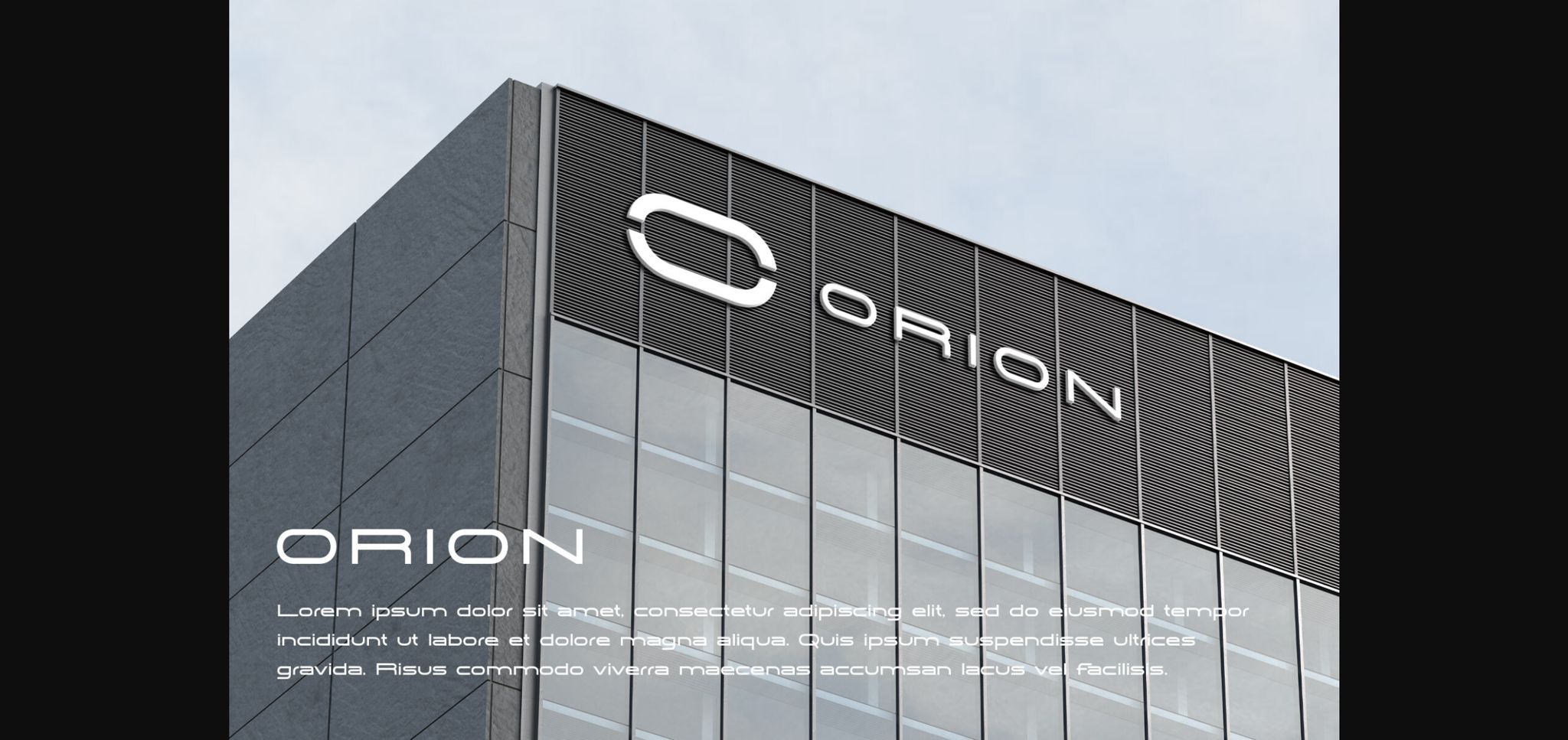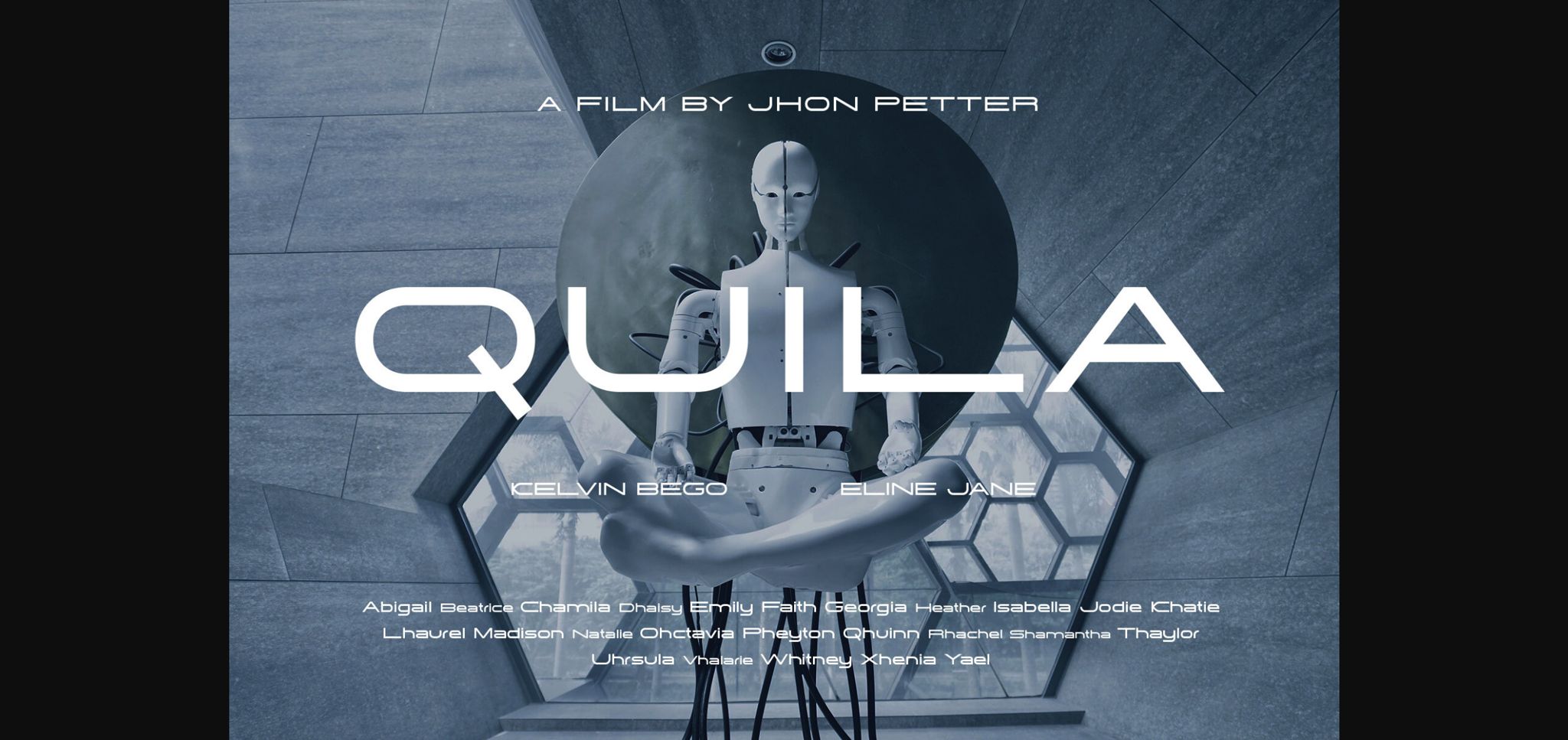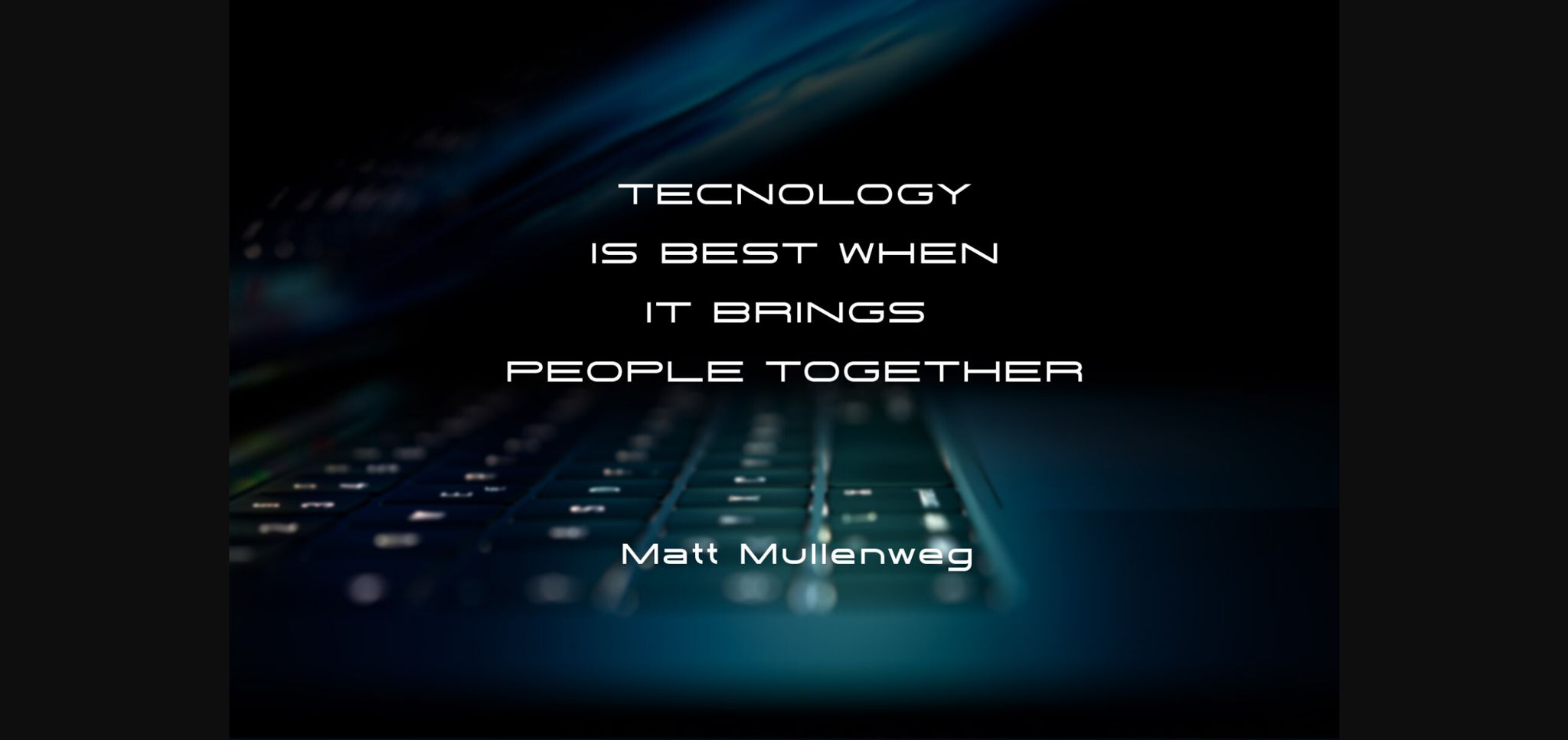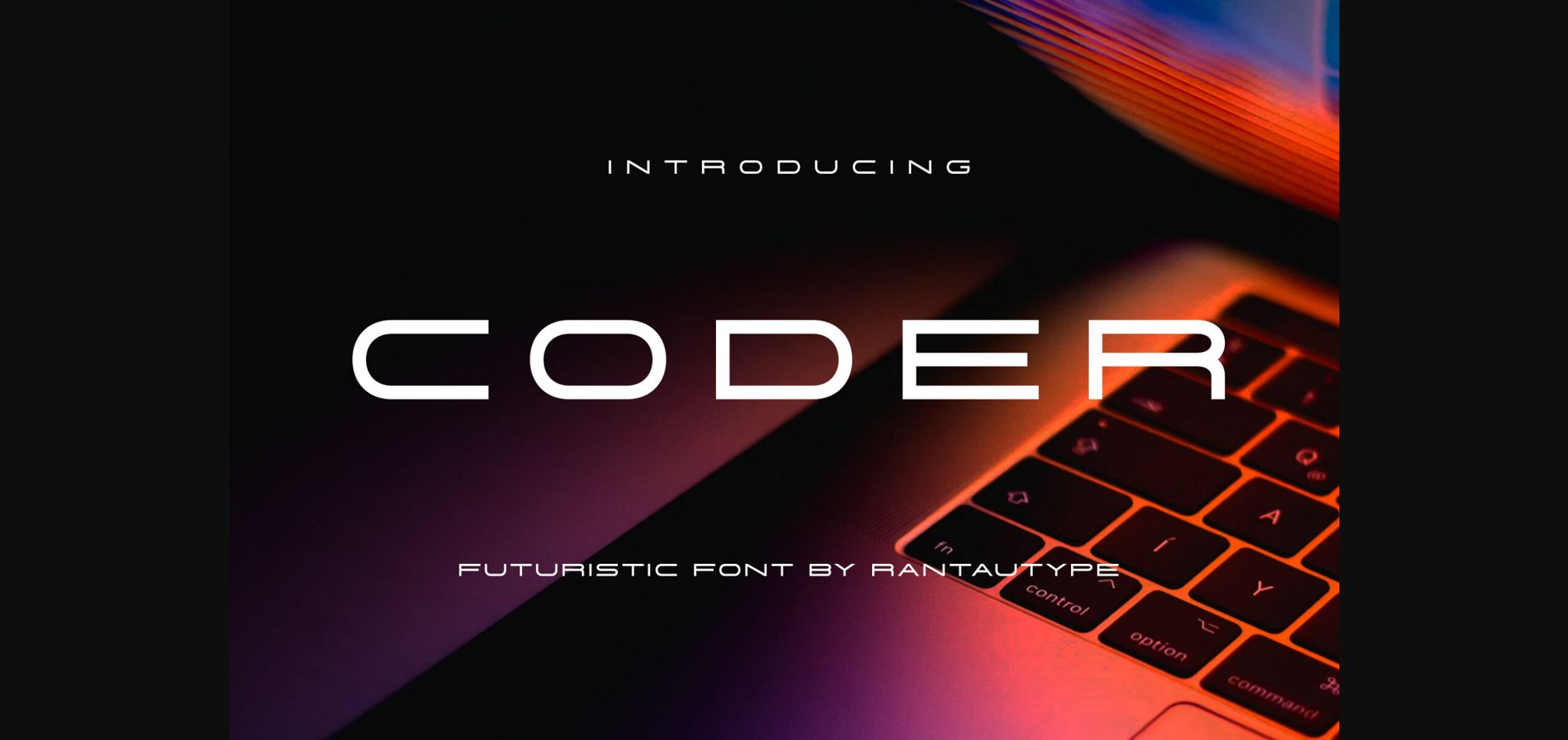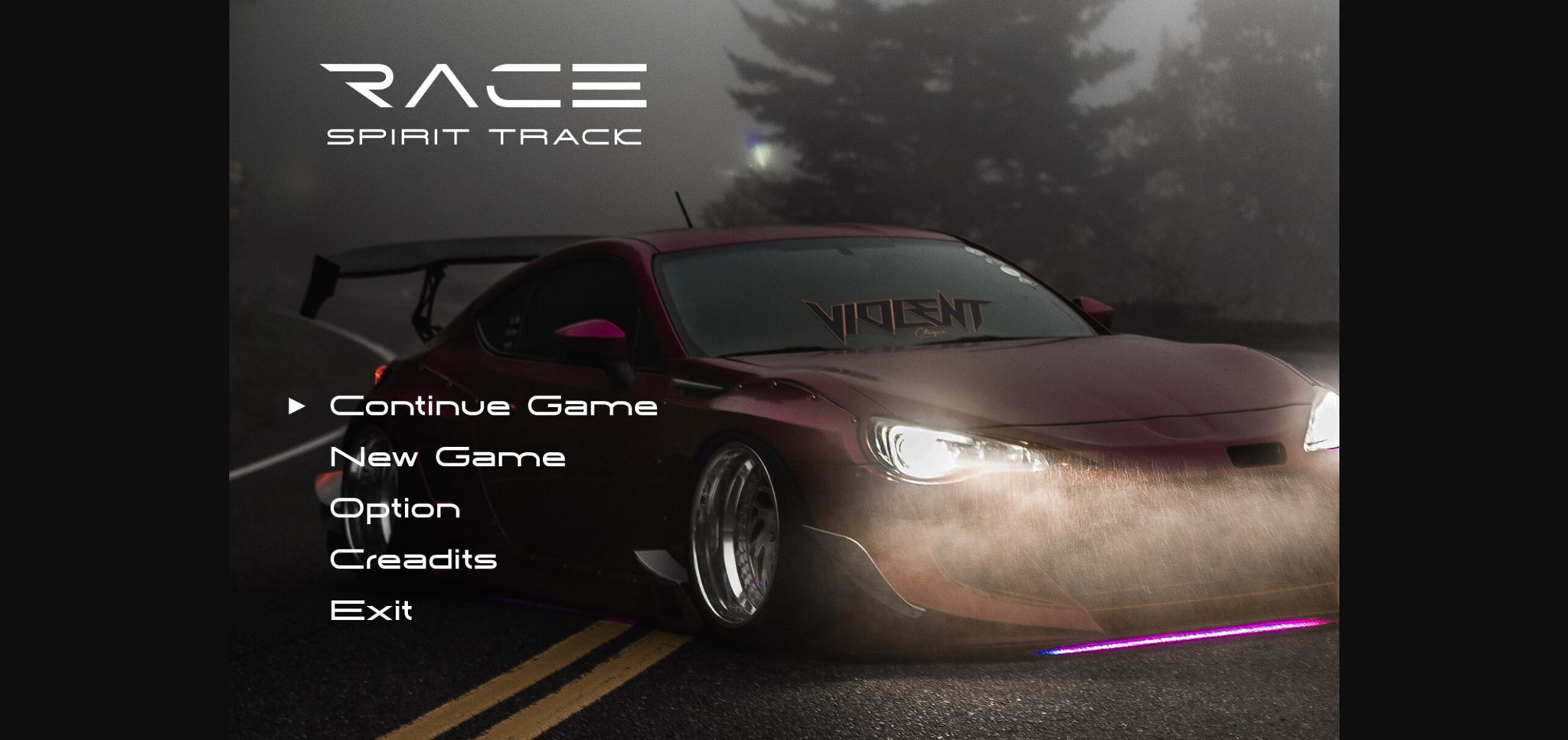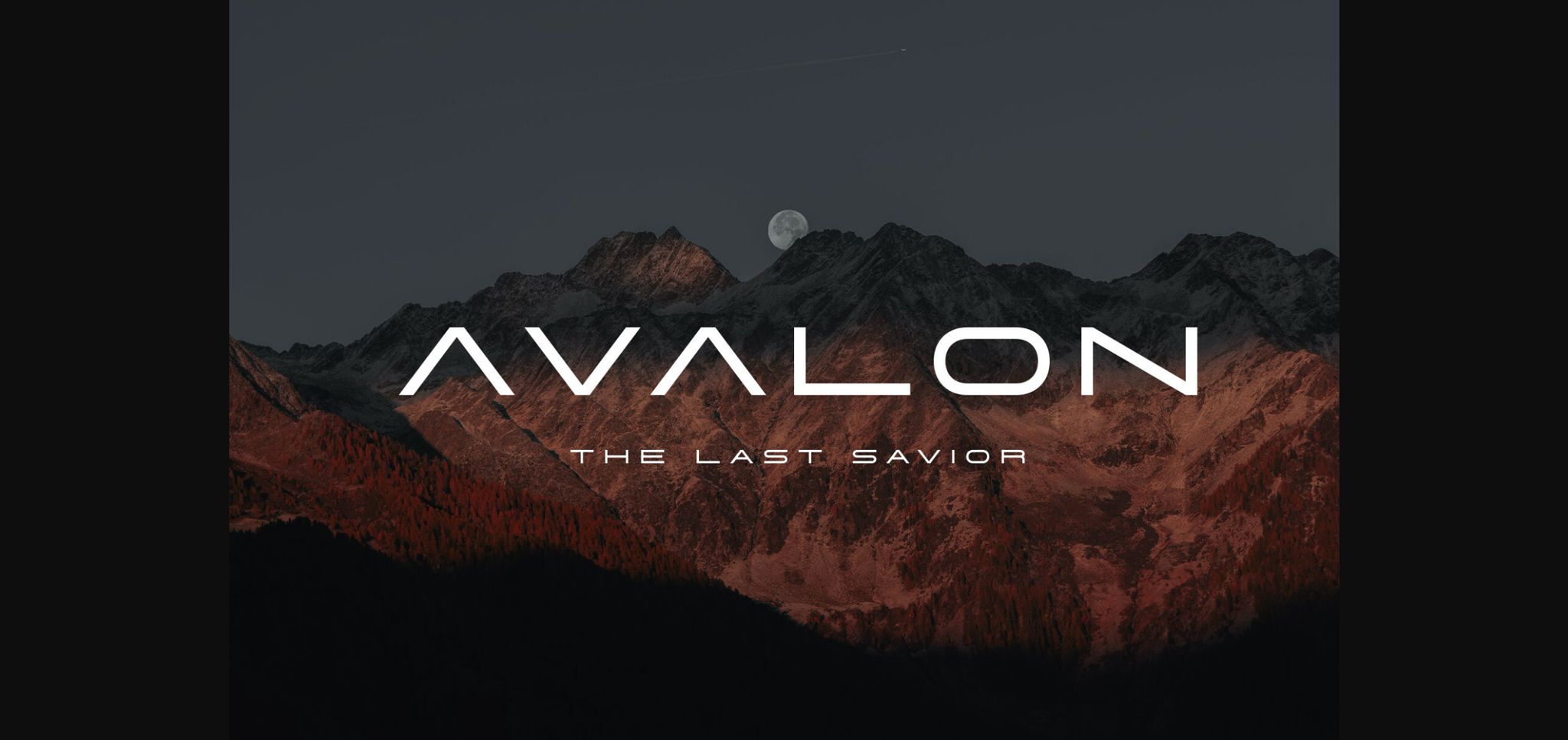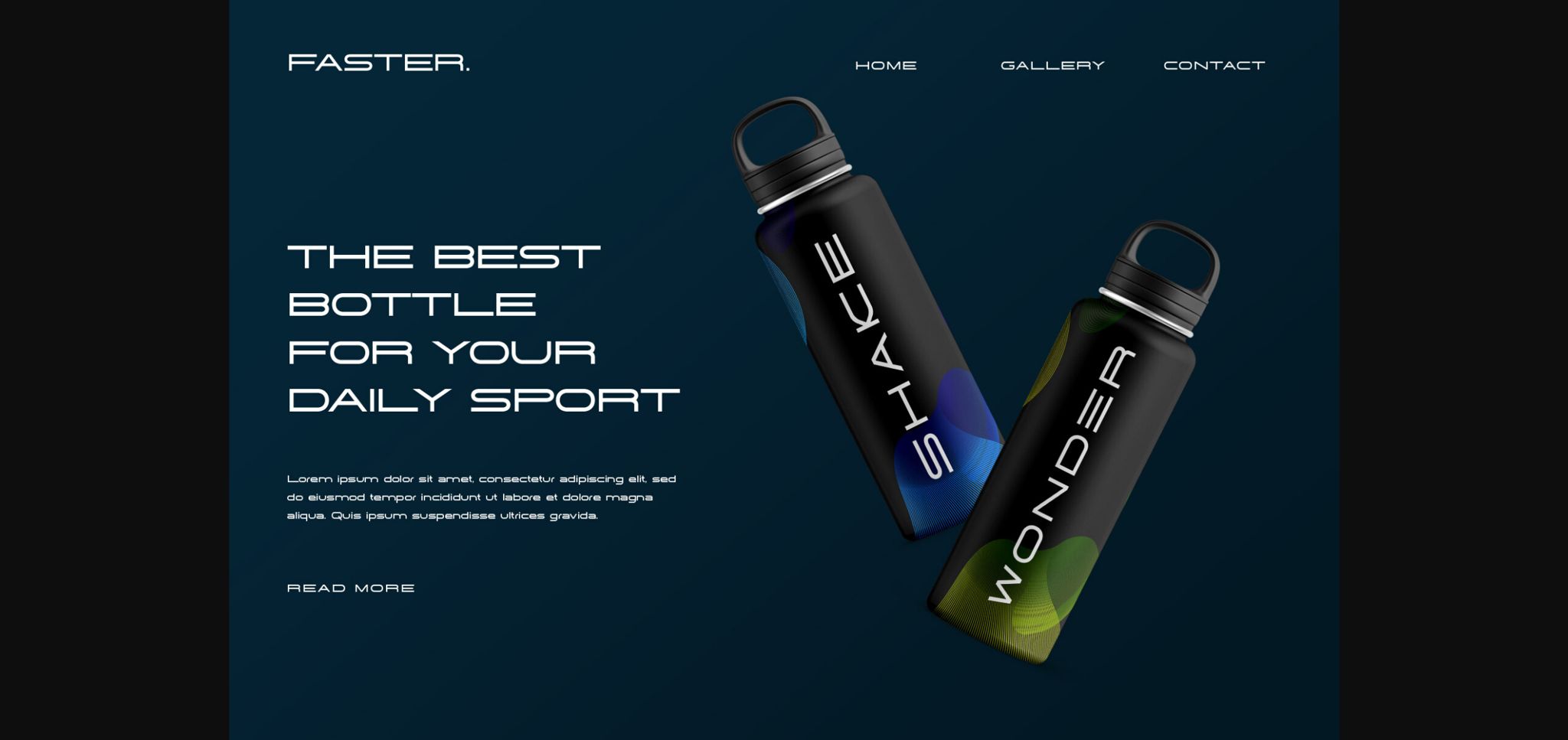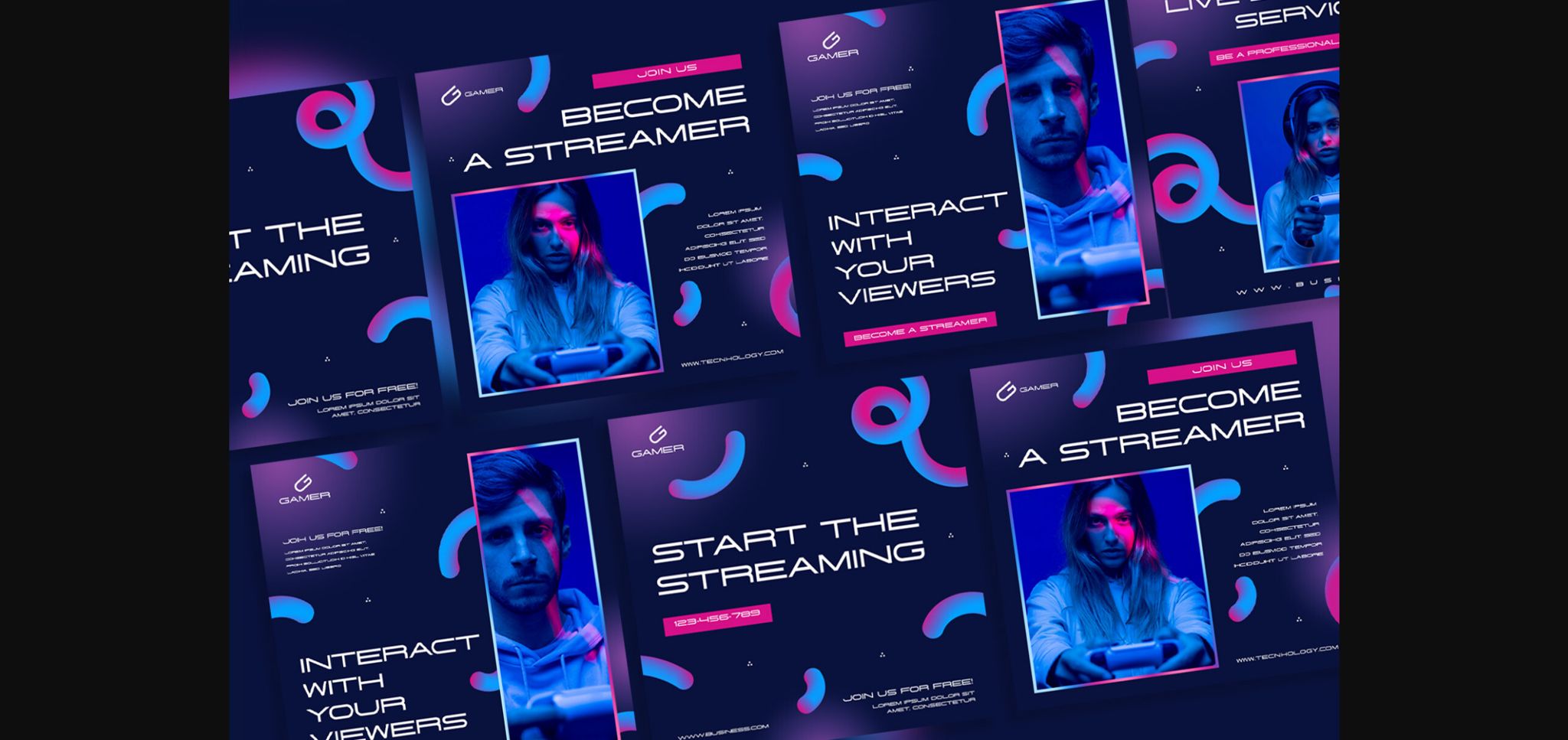
About Coder Font
Coder is a sleek and futuristic sans-serif font with a wide, geometric design. Its clean lines and sharp edges exude a sense of modernity and sophistication, making it ideal for tech-related projects, branding, and contemporary designs that require a bold and professional aesthetic.